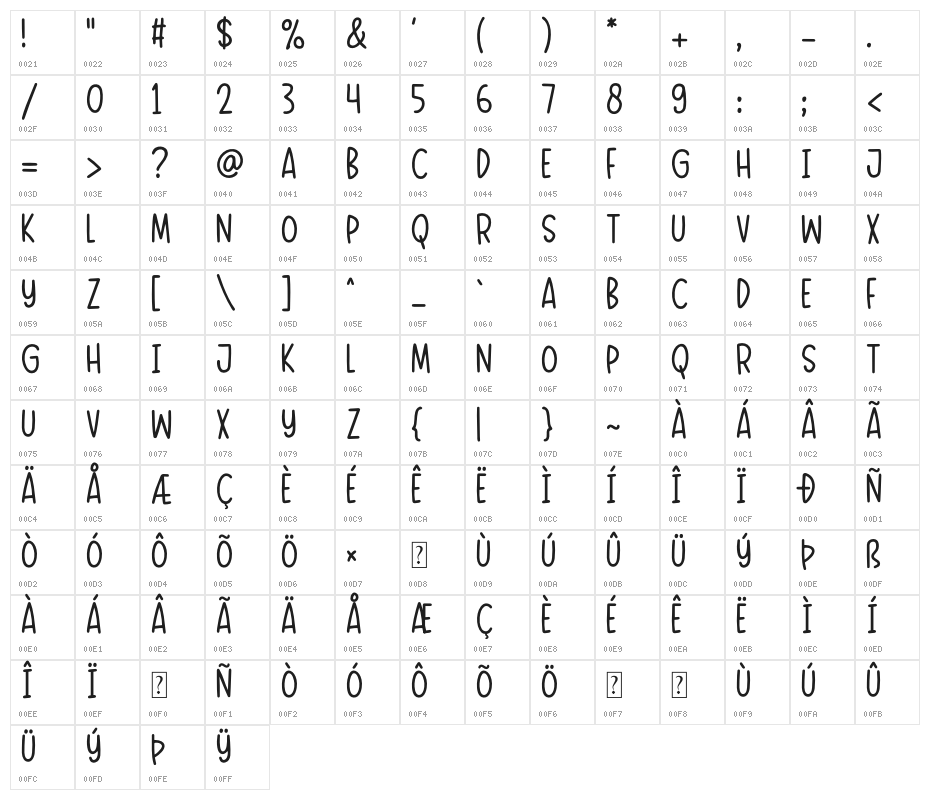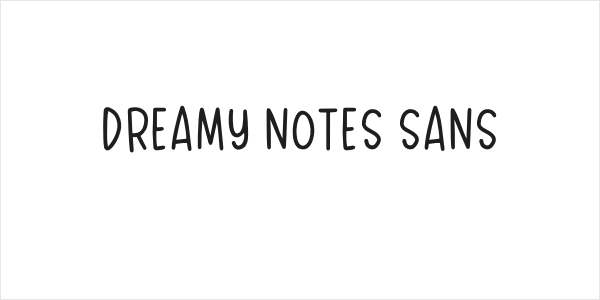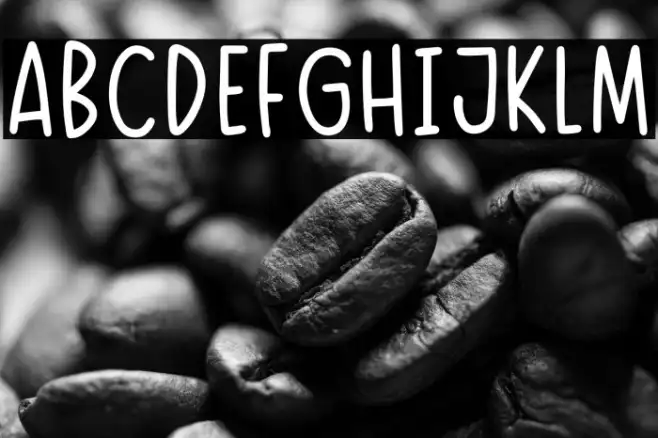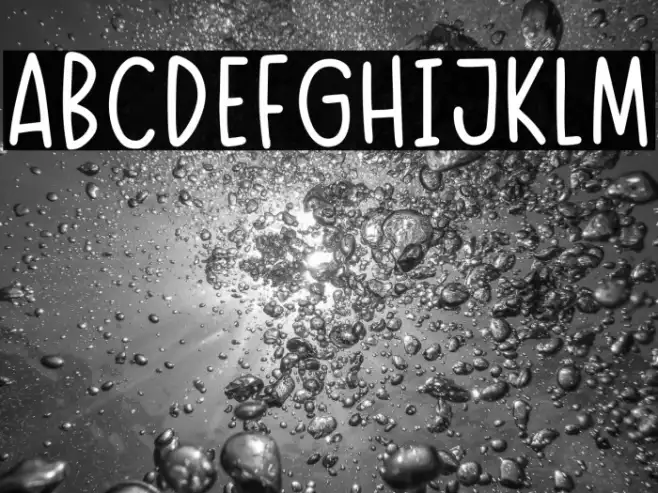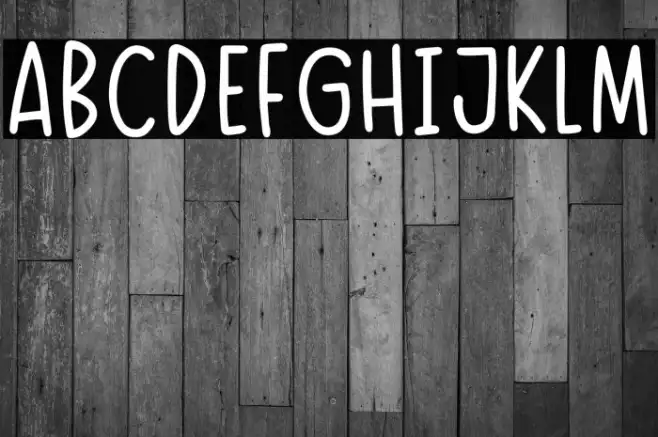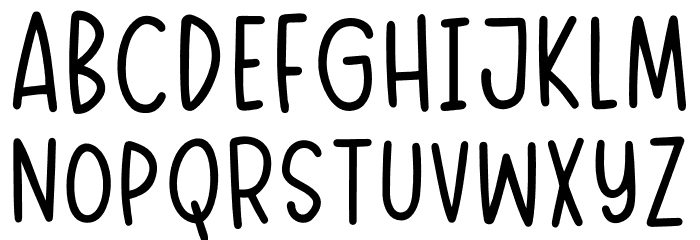
Dreamy Notes Sans Font
Dreamy Notes Sans Description
This playful and whimsical font features a handwritten style with smooth, rounded edges and a casual, friendly appearance. The letters are slightly irregular, giving it a natural and organic feel, reminiscent of doodles or notes in a personal journal. The characters are evenly spaced, maintaining readability while adding a touch of charm and personality. The font includes both uppercase and lowercase letters, numbers, and a variety of special characters, making it versatile for different uses. Its informal style makes it ideal for projects that require a personal touch or a relaxed vibe.
| Use Case | Headlines, Informal text, Personal projects |
| Proposed Projects | Ideal for greeting cards, personal notes, children's books, and informal branding. |